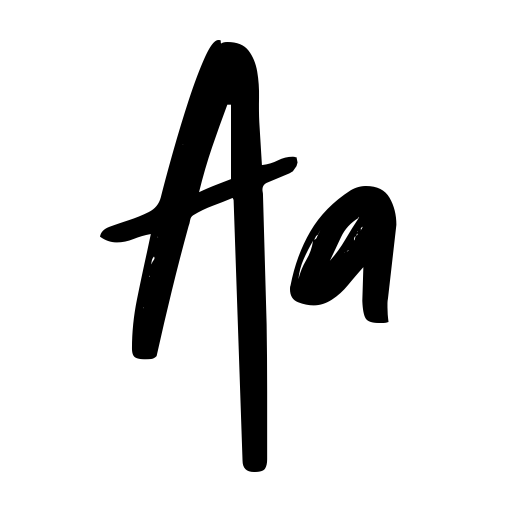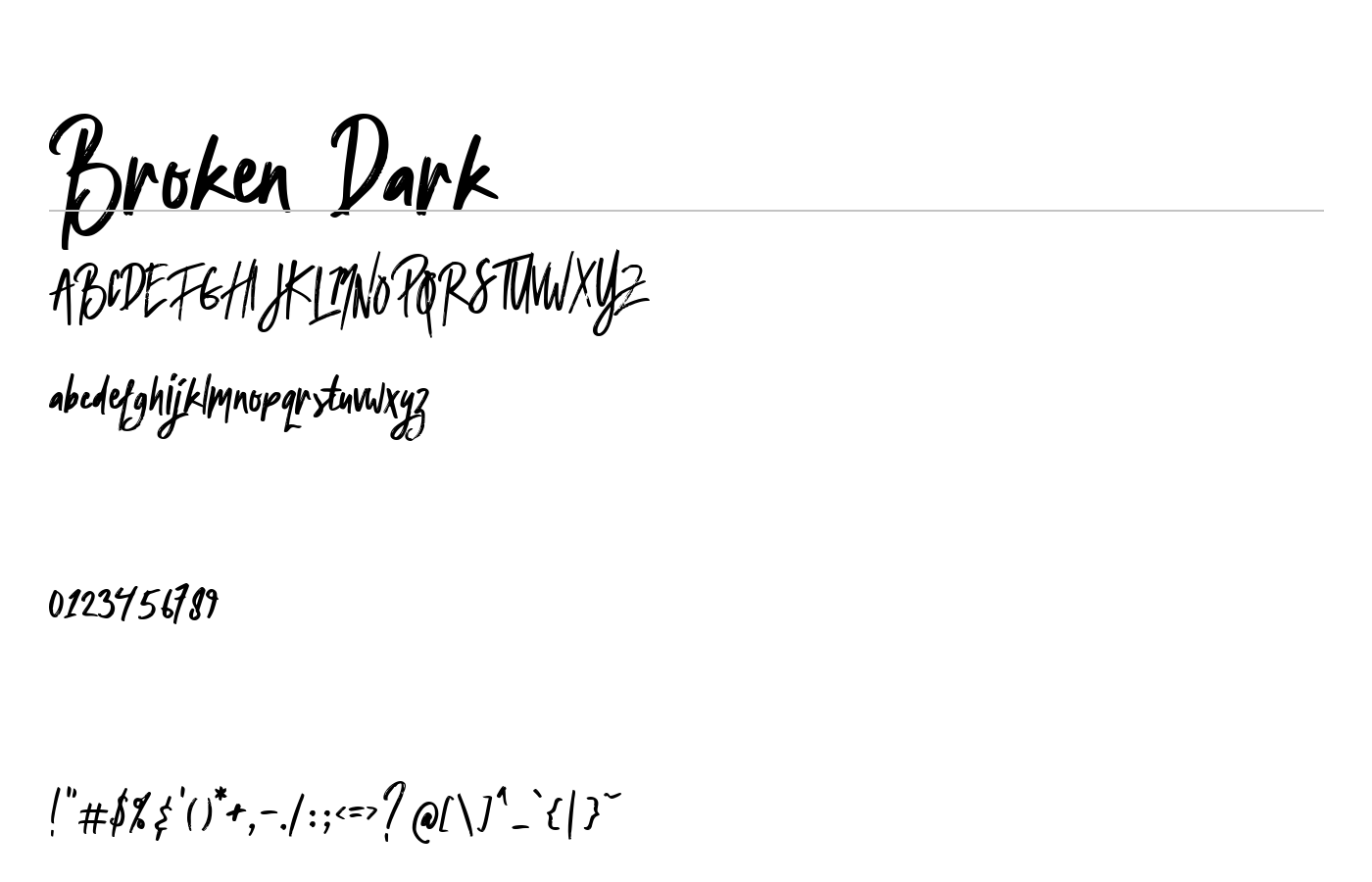
Broken Dark is a lively and edgy handwritten script font with a rough, textured stroke that gives it an energetic, grungy feel. Its tall, narrow letterforms and casual style make it perfect for creative, urban designs that want to convey a sense of boldness and personality. This font works well in logos, posters, and branding projects where a modern, rebellious, and dynamic look is desired.
Broken Dark Font
About Broken Dark Font
| Font family | Broken Dark Font |
| Designer | Queentype |